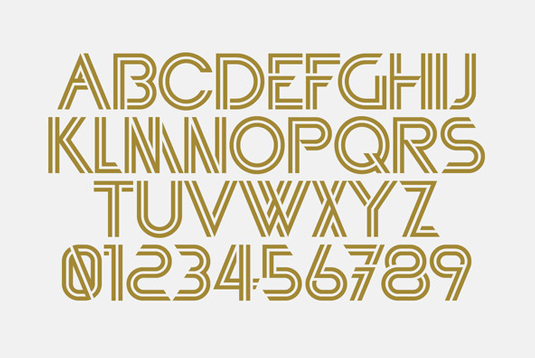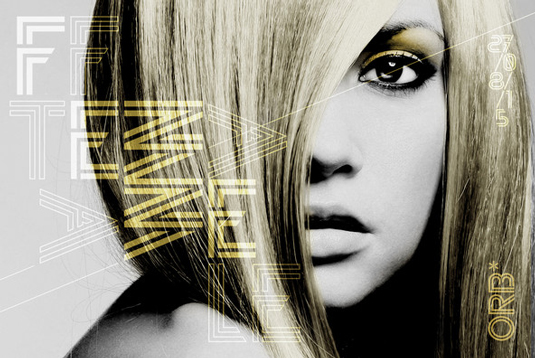
Font of the day: Orb
Orb from Superfried
London-based graphic design studio Superfried is no stranger to our font of the day posts, with multiple beautiful and experimental designs under its belt. And today's offering, Orb, is no exception. Superfried's Mark Richardson comments: "Orb is an elegant, geometric uppercase display typeface. The glyphs are constructed from two concentric paths featuring intricate interactions and angled incisions, which lead to a very distinct look and feel."